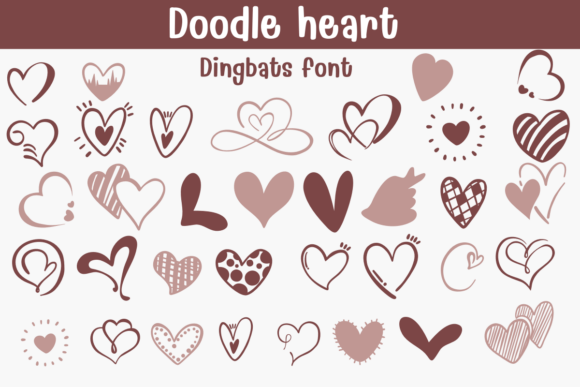
The Perfect Font for the Modern Romantic
Have you ever been working on a project and suddenly, a spark of creativity hits you? You imagine a beautiful, hand-drawn heart that perfectly captures the essence of your design. For many designers, this moment is a dream come true, but it can be challenging to bring it to life. This is where the Doodle Heart Font comes in – a unique dingbats typeface that lets you “type” beautiful vector-style illustrations as easily as letters.
The Doodle Heart Font is a curated collection of “Heart of Love” symbols, ranging from simple sketches and infinity loops to patterned icons and decorative flourishes. With its wide variety of styles, from minimalist outlines to intricate, dot-work hearts, this font is a designer’s best friend for creating custom patterns, gift wrap, social media quote cards, and boutique logos with a sense of “hand-drawn” warmth.
Whether you’re a seasoned designer or a creative enthusiast, the Doodle Heart Font is a valuable addition to your toolkit. Its versatility and charm make it a perfect pairing with script and handwritten fonts, allowing you to add a touch of authentic, hand-crafted affection to your projects.
Doodle Heart Font Key Features
- Unique, handwritten style with a touch of whimsy and romance, perfect for creating a personal and emotional connection with your audience.
- Includes a range of ligatures and swashes to add an extra touch of personality and flair to your typography.
Doodle Heart Font Review
I recently had the chance to play around with the Doodle Heart Font, and I must say it’s a delightful addition to any design project. ✨ Here’s what I think works well:
- Unique, Hand-Drawn Feel: The Doodle Heart Font has a charming, hand-drawn quality that sets it apart from more generic sans-serif fonts.
- Perfect for Whimsical Projects: This font is ideal for designs that require a touch of playfulness and whimsy, making it perfect for children’s books, greeting cards, or social media graphics.
- Good for Small Text: The font scales well and looks great even in smaller text sizes, making it a great choice for captions or quotes.
However, I do have a few concerns: ⚠️ Here are the limitations I’ve encountered:
- Limited Character Set: The font only includes uppercase and lowercase letters, numbers, and a few special characters, which may not be sufficient for more complex projects.
- Not Ideal for Long Text: While the font looks great in short text, it can become cumbersome and difficult to read when used for longer blocks of text.
Overall, I think the Doodle Heart Font is a great addition to any design library, but it’s essential to keep its limitations in mind when using it in your projects.
The Doodle Heart Font is ideal for:
- Valentine’s Day and love-themed designs.
- Children’s birthday cards and party invitations.
- Wedding invitations and decorations.
For best results, use the Doodle Heart Font in conjunction with playful and colorful designs to create a whimsical and eye-catching effect.